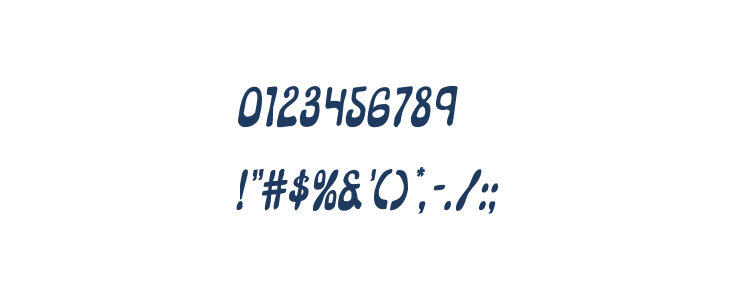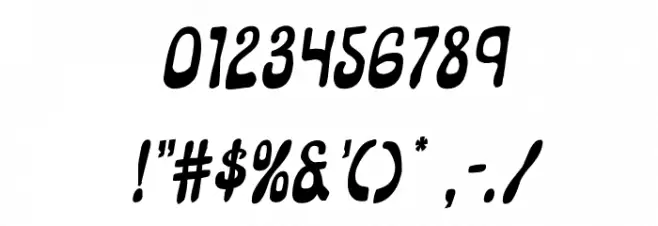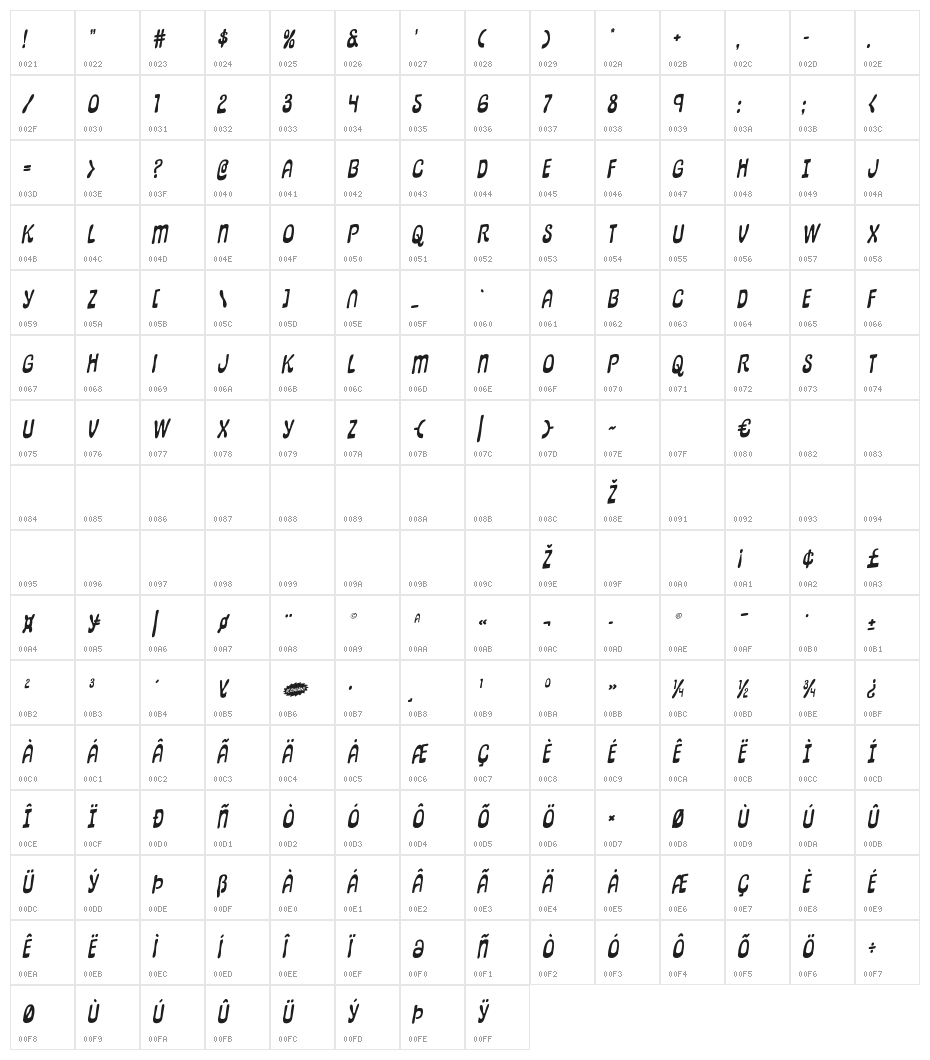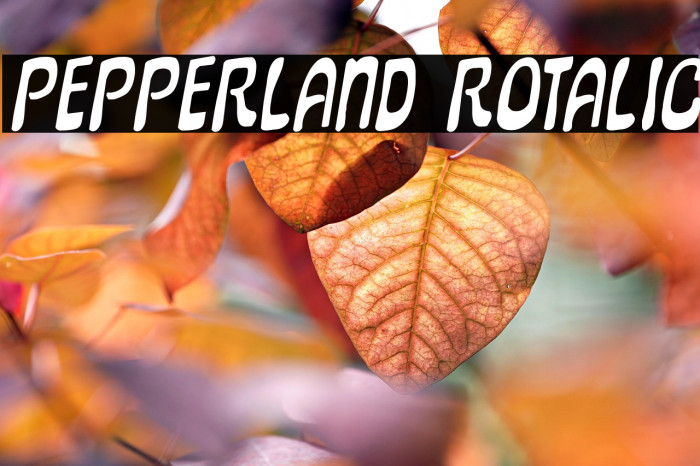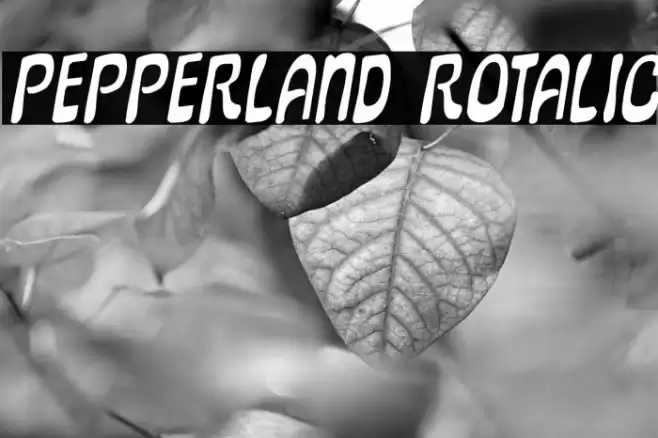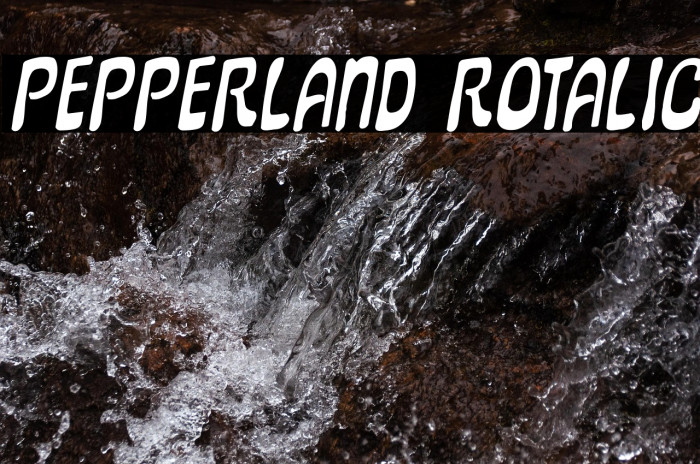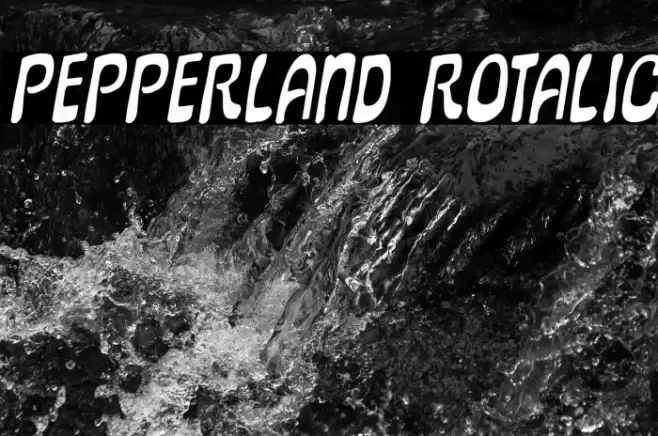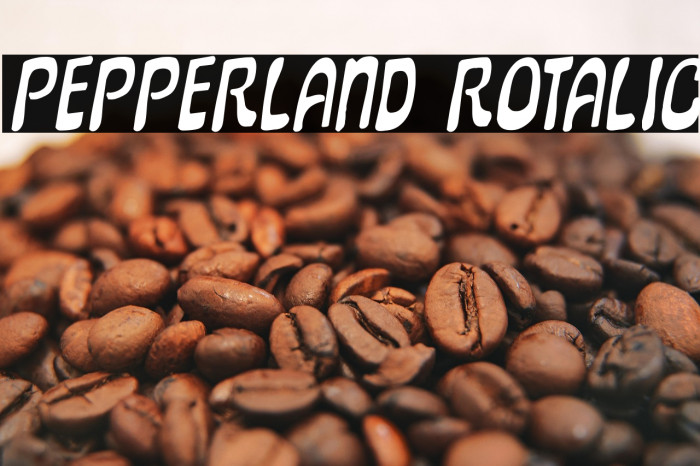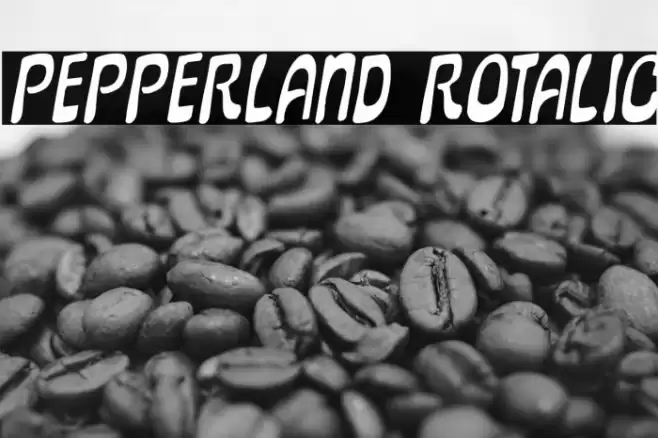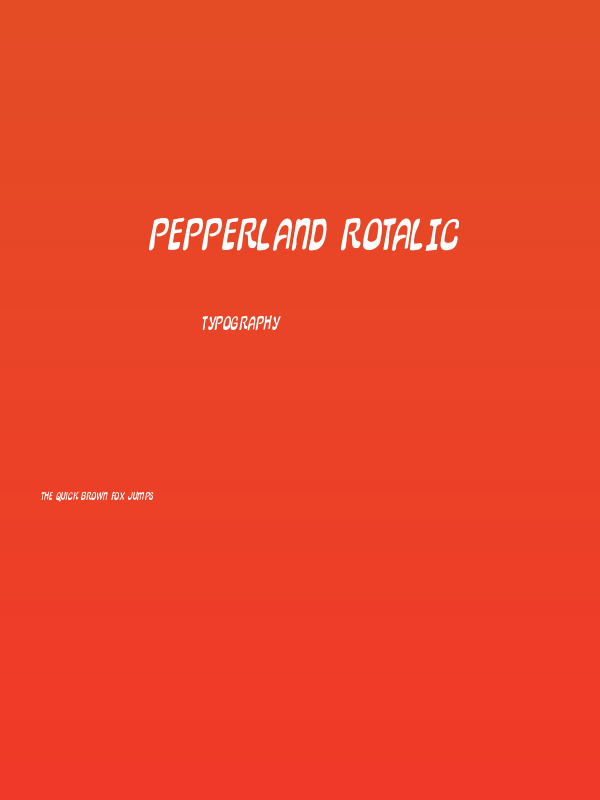
Pepperland Rotalic Font
Pepperland Rotalic Description
This font exhibits a playful and dynamic style with a slight slant, giving it an italicized appearance. The characters are bold and rounded, with a consistent stroke width that maintains readability while adding a touch of whimsy. The uppercase and lowercase letters are well-proportioned, and the numbers are clear and distinct. Special characters are included, enhancing its versatility. The overall design is modern and eye-catching, suitable for projects that require a lively and engaging typeface.
| Proposed Projects | Ideal for posters, branding, children's books, and creative advertising. |